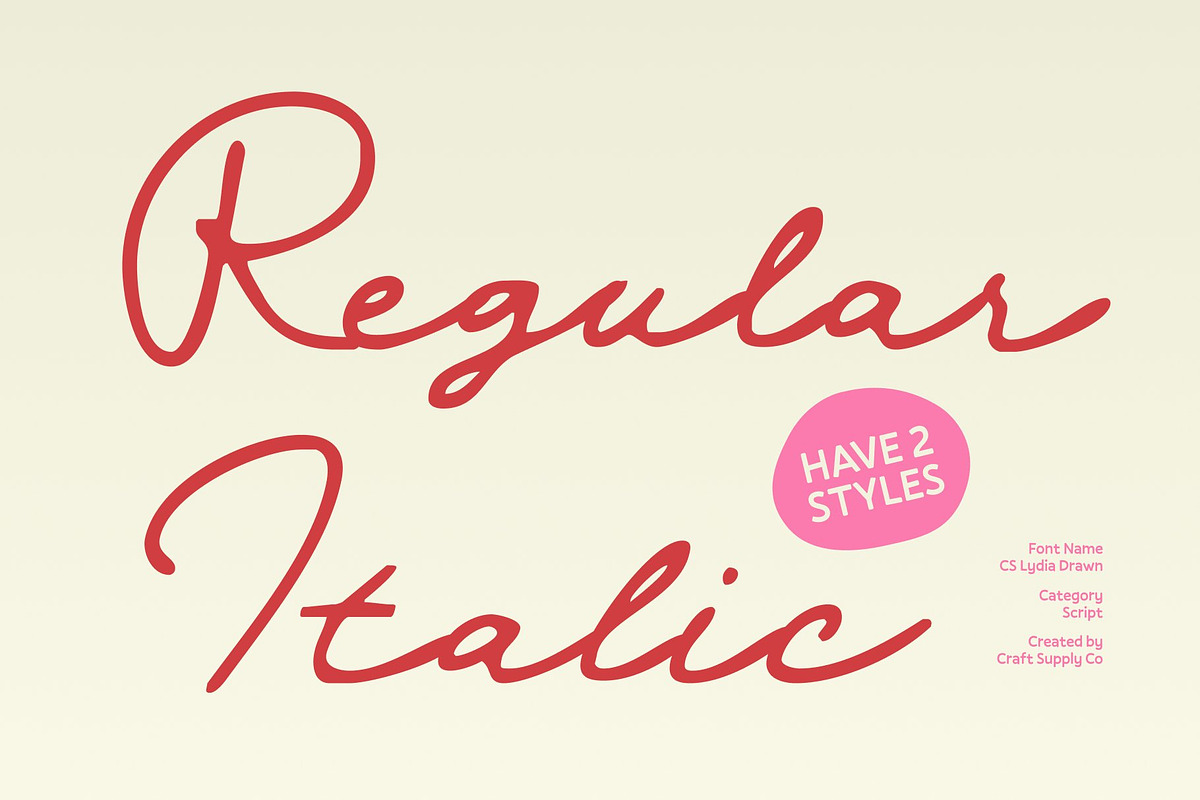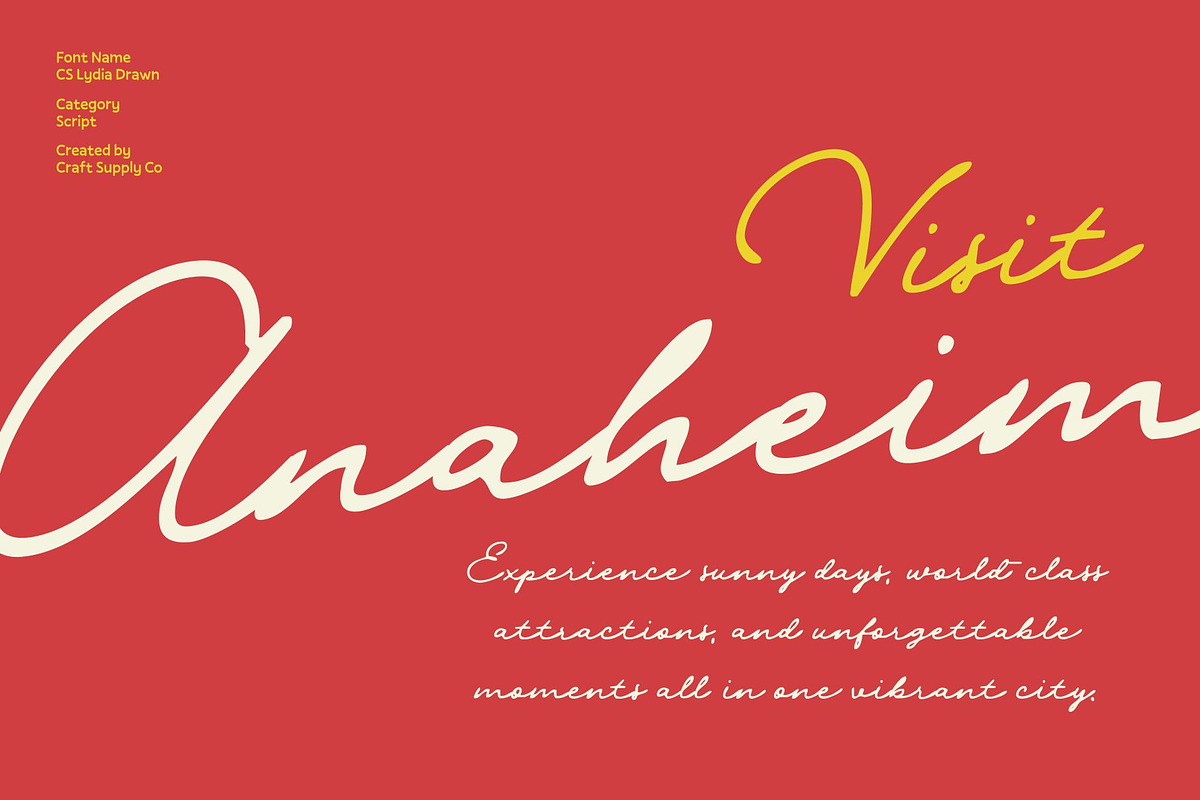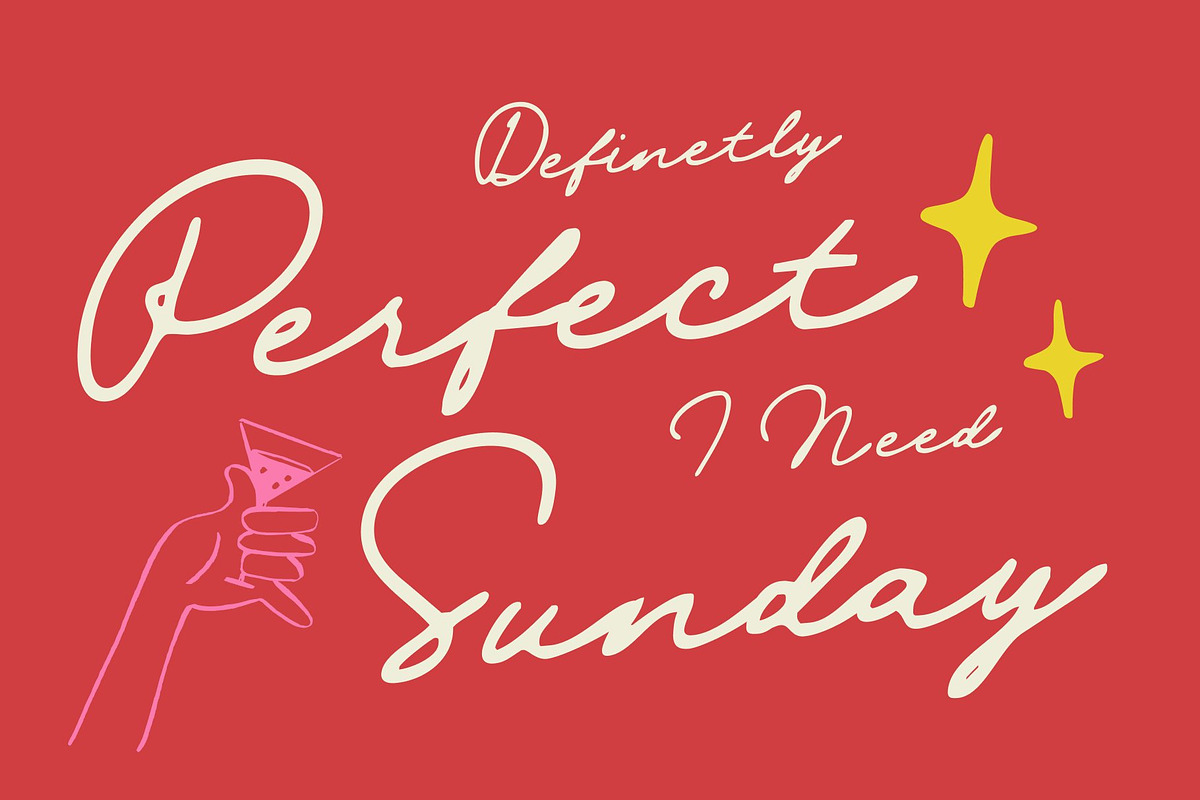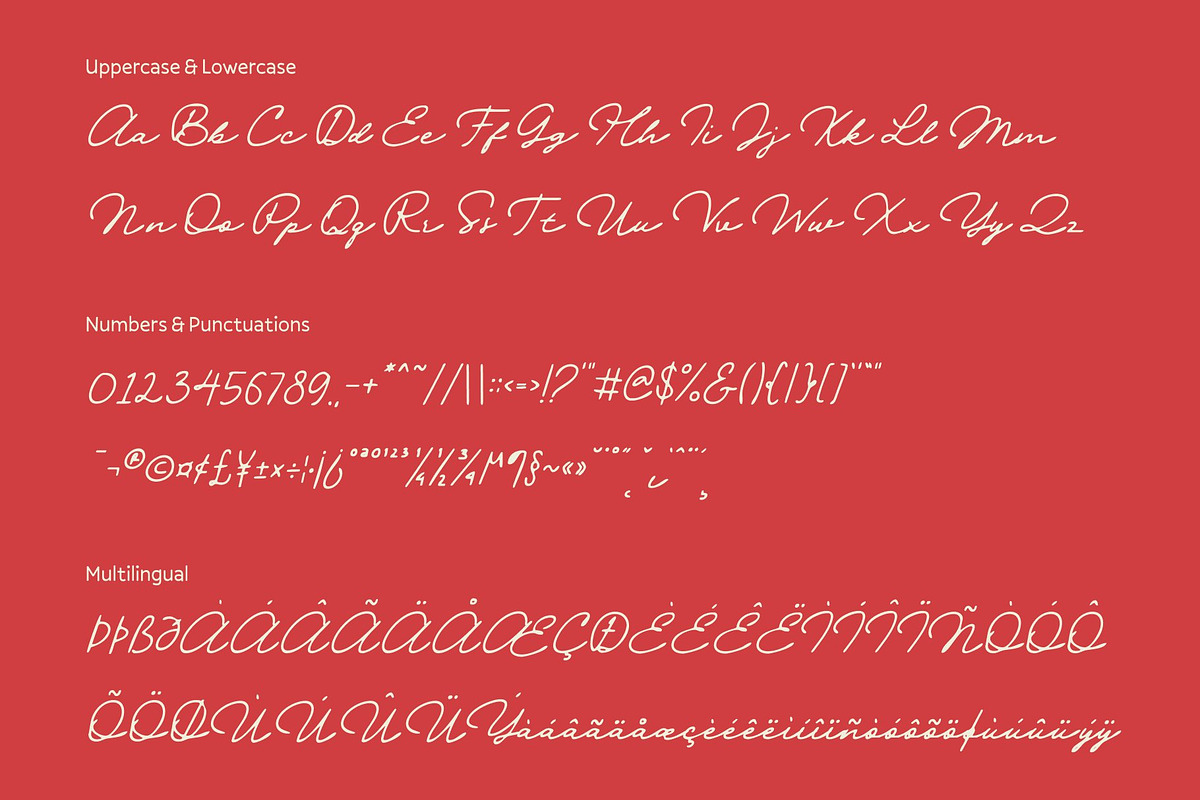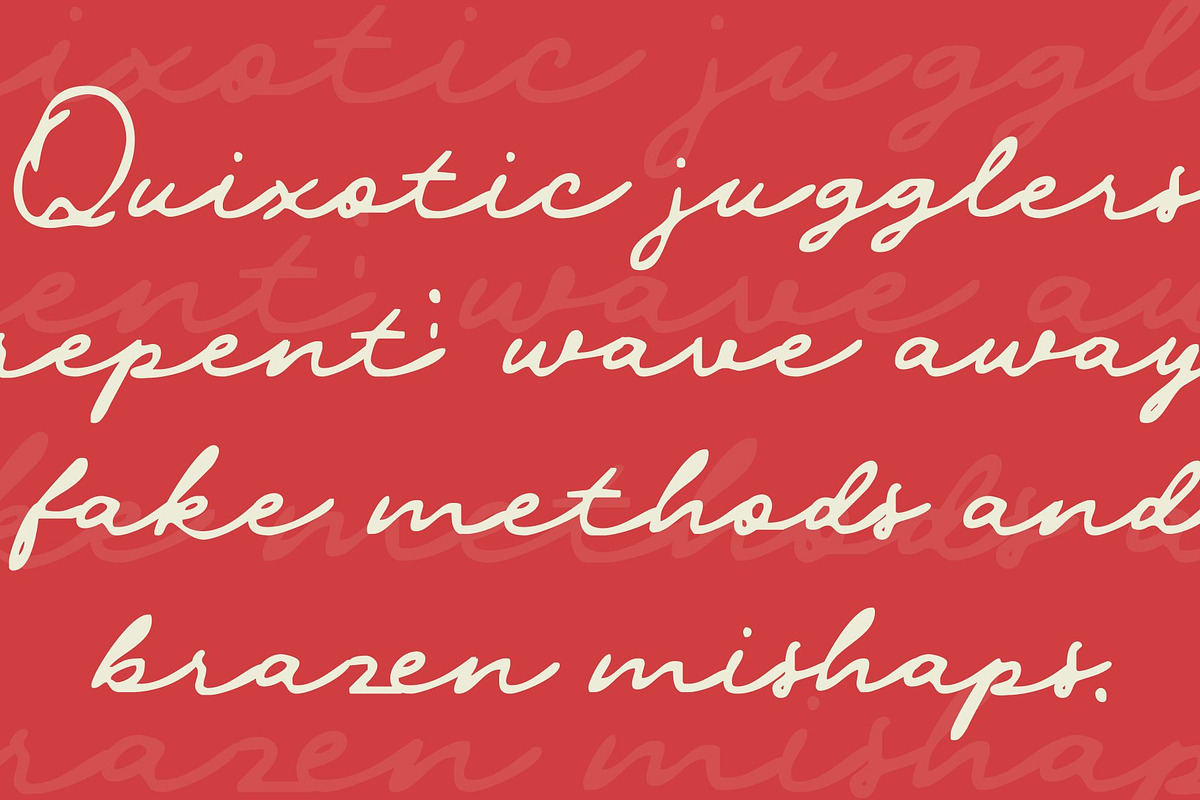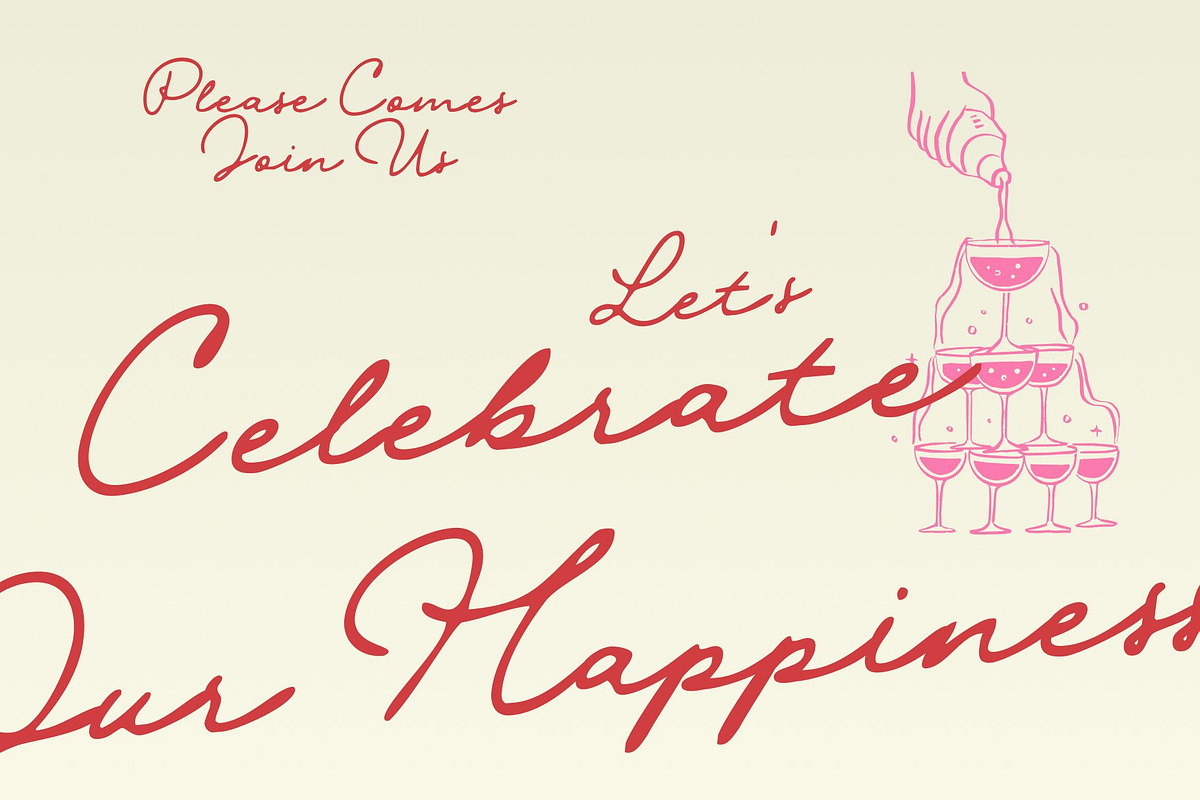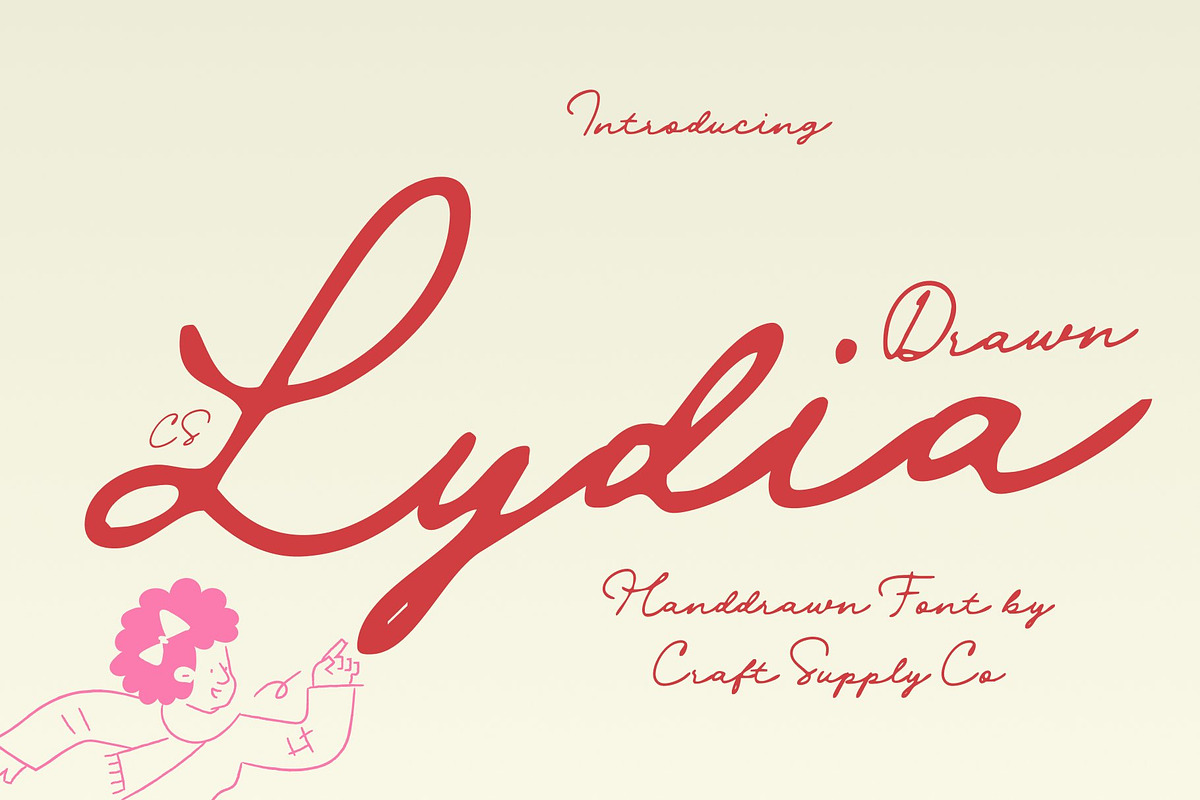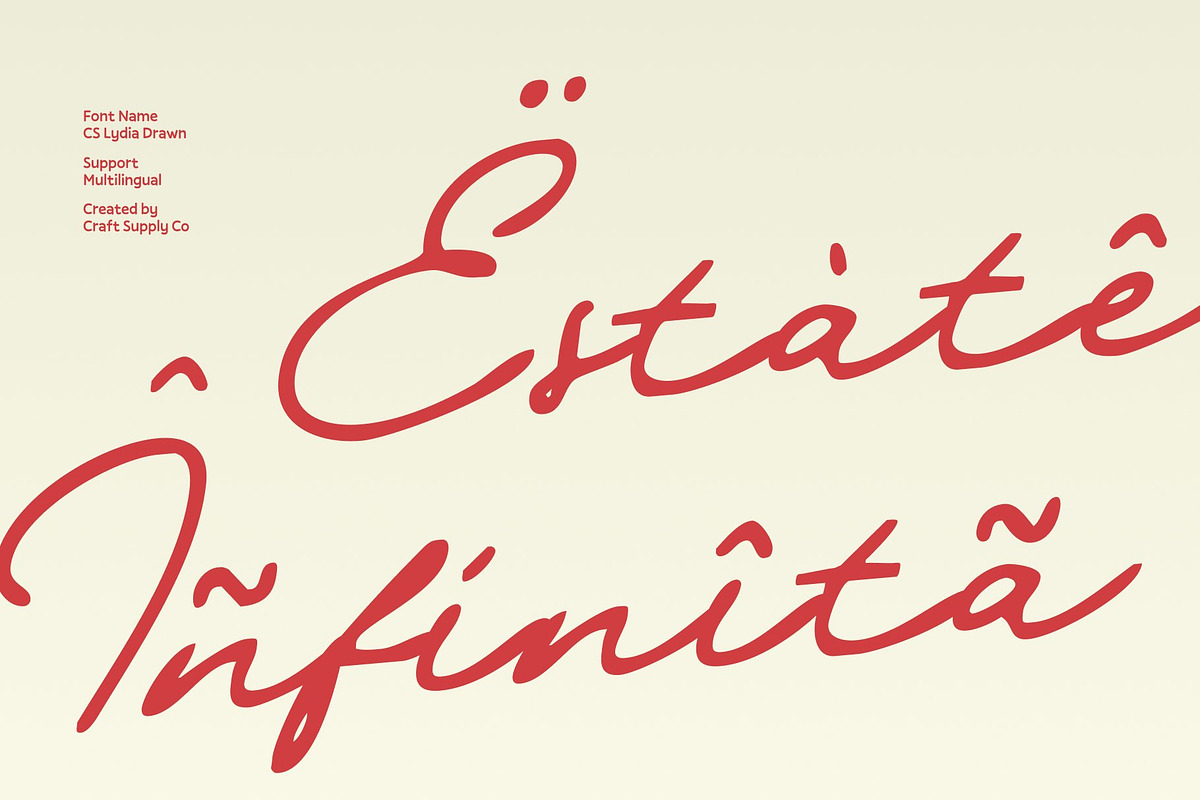
CS Lydia Drawn
CS Lydia Drawn – Handwritten Elegance with Mediterranean Grace
Romantic Script with Hand-Drawn Sophistication This is a romantic handwritten script font that flows with effortless Mediterranean elegance. Its graceful curves and fluid letterforms are enriched by a subtle drawn effect, giving each character a unique, organic presence. This handcrafted quality adds warmth and authenticity while maintaining a luxurious and refined appearance.
Elegant Flow with Expressive Movement Every stroke in this font is designed to feel natural and emotionally expressive. The smooth script rhythm creates a sense of intimacy and charm, allowing words to flow beautifully across the page. The hand-drawn texture softens the elegance, making the typography feel personal, heartfelt, and visually captivating.
Natural Beauty with Refined Details Blending handwritten spontaneity with polished structure, this font offers a perfect balance of natural grace and professional finish. The drawn nuances introduce gentle imperfections that enhance its artistic appeal, resulting in lettering that feels timeless, sophisticated, and rich in character.
Perfect for Romantic and Luxury Designs This font is ideal for wedding invitations, luxury branding, elegant packaging, editorial layouts, and romantic visuals. Its flowing script, Mediterranean-inspired charm, and artistic drawn texture make it a beautiful choice for designs that aim to express emotion, elegance, and timeless handwritten beauty.
- CS Lydia Drawn Regular
- CS Lydia Drawn Italic